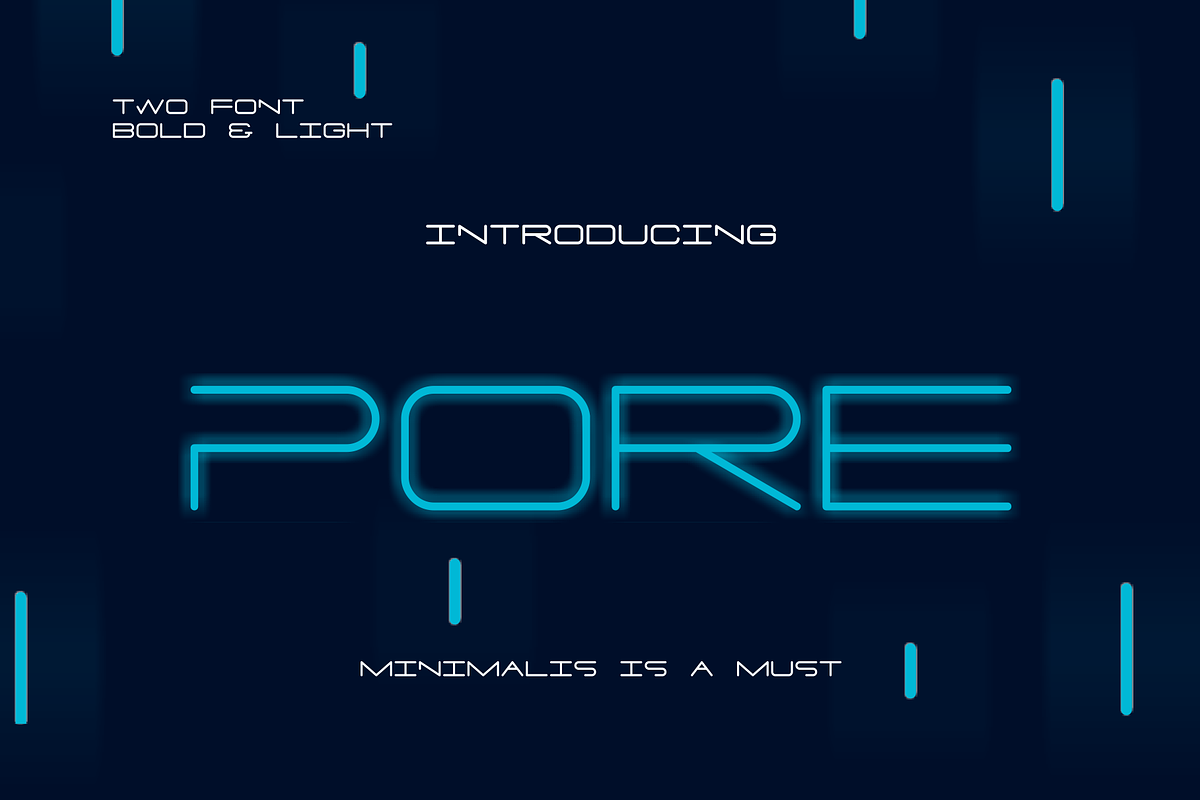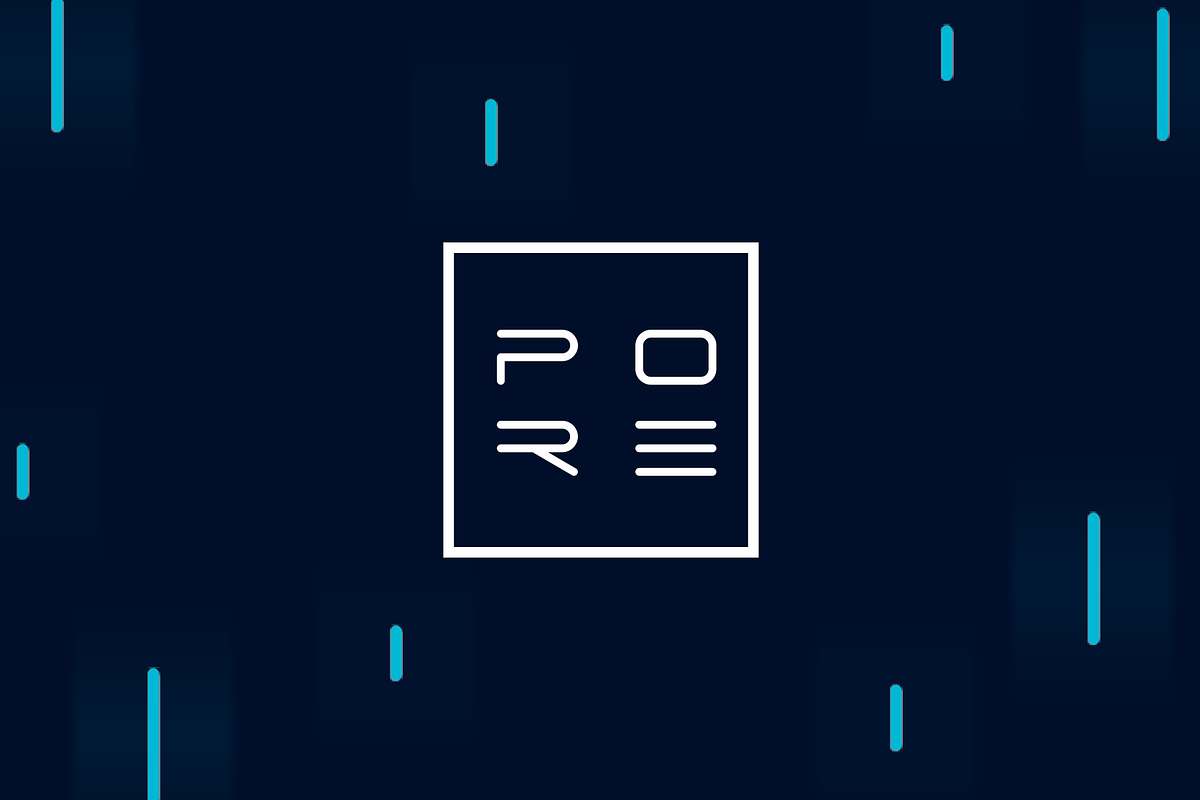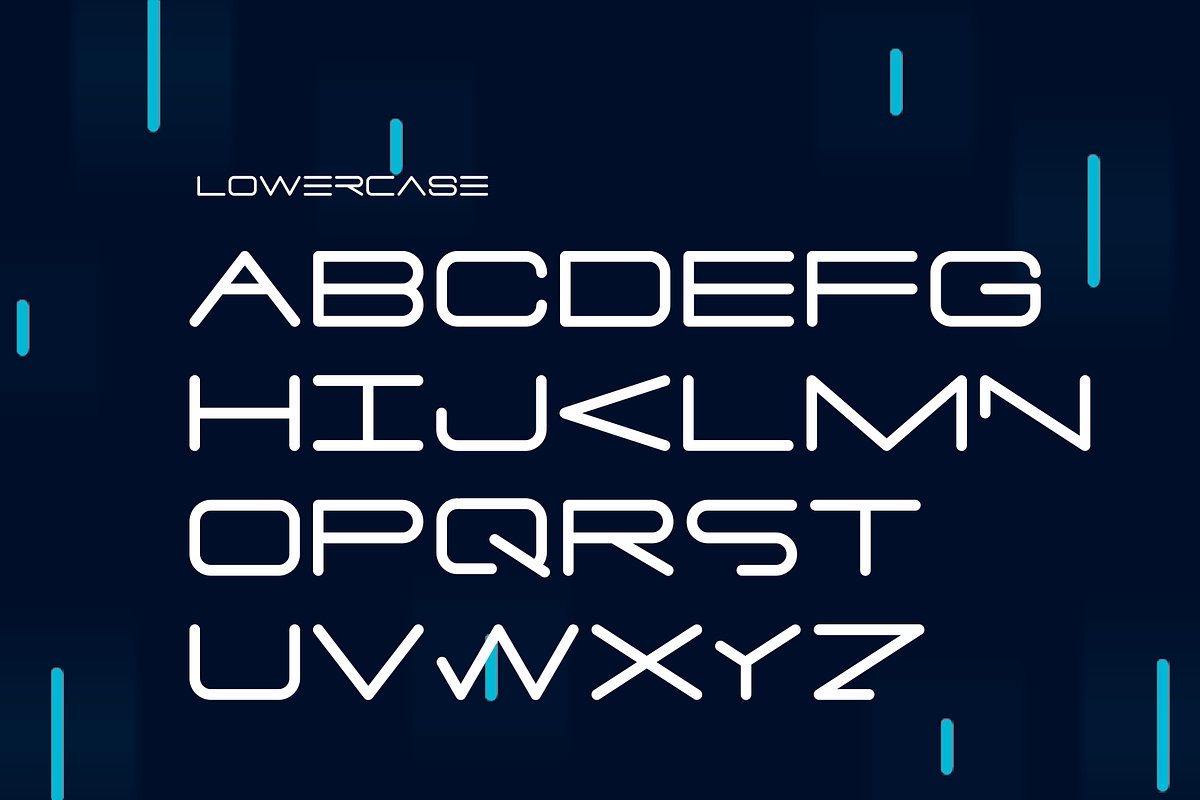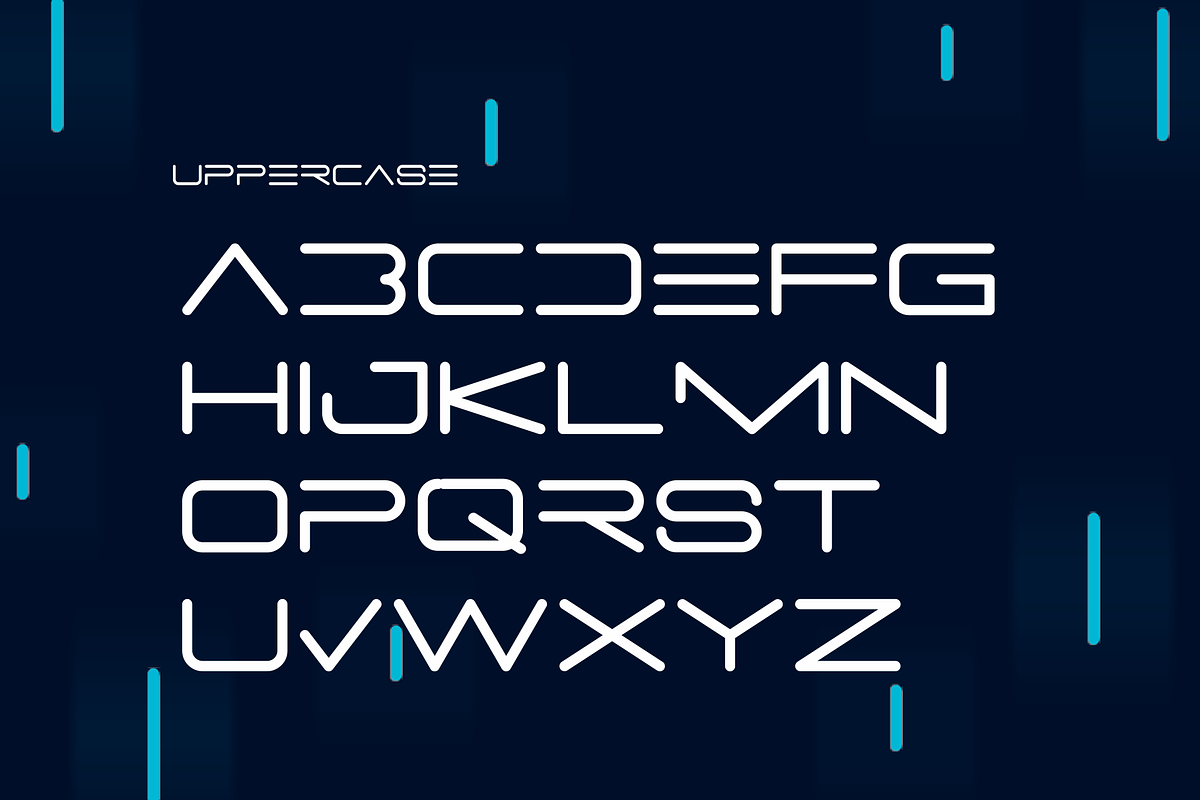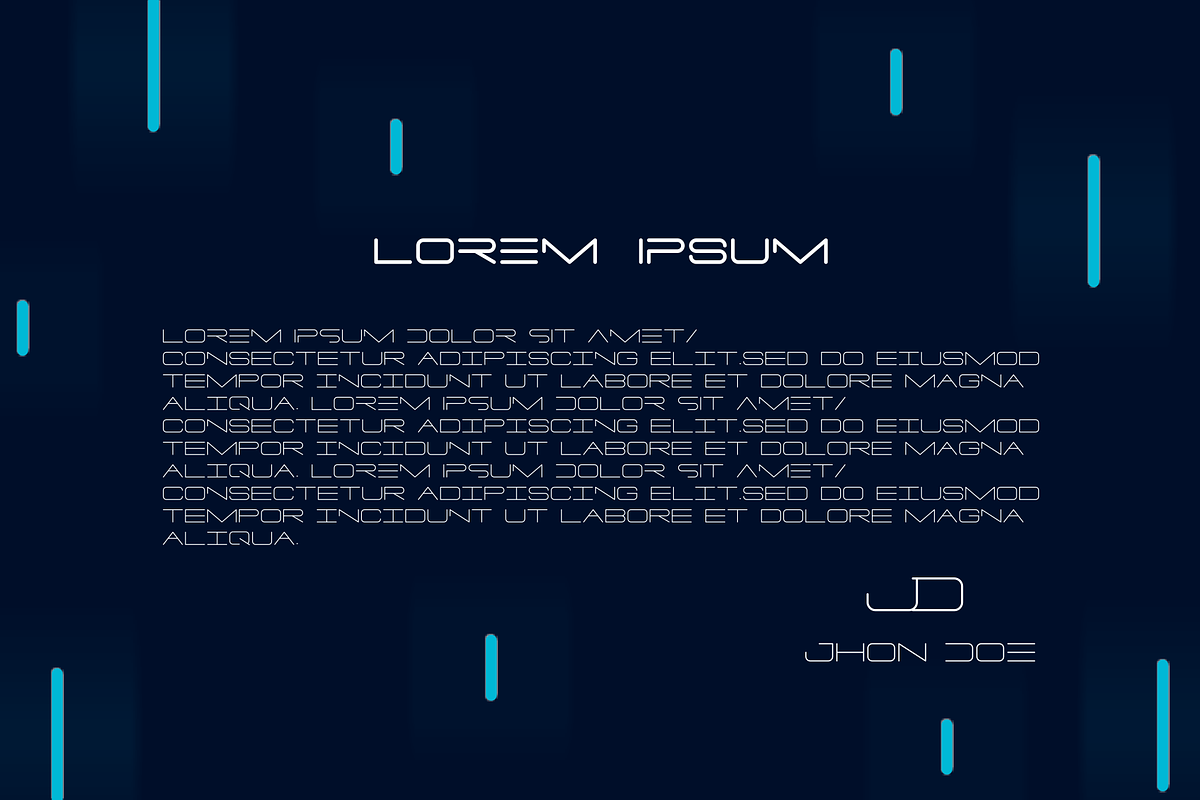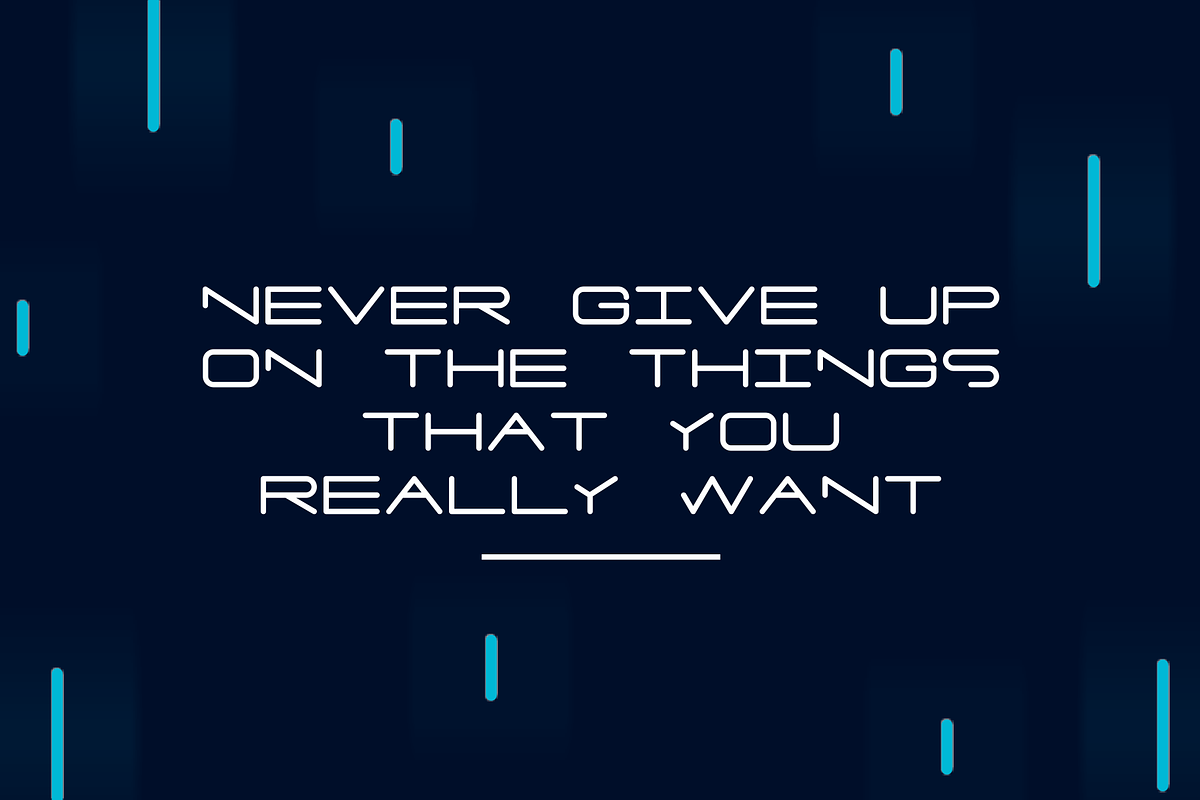
PORE Font
PORE Expanded is a minimal and rounded font. It’s an sans serif, wide, rounded monoline font which will provide an informal, sci-fi,modern,elegan and clean look to your work.
- PORE Semi-expanded Light
- PORE Semi-expanded Bold
PORE Font by Akdesain fits naturally into Branding, posters, packaging, typography.